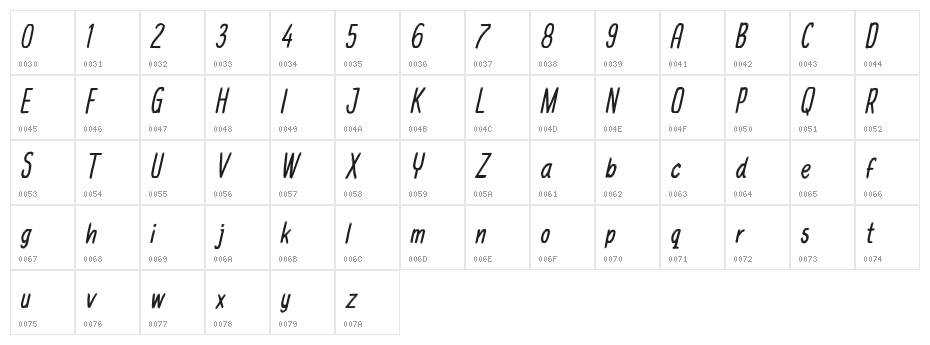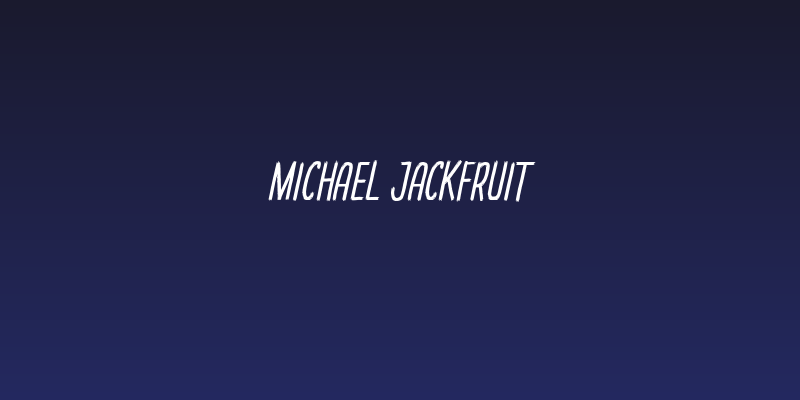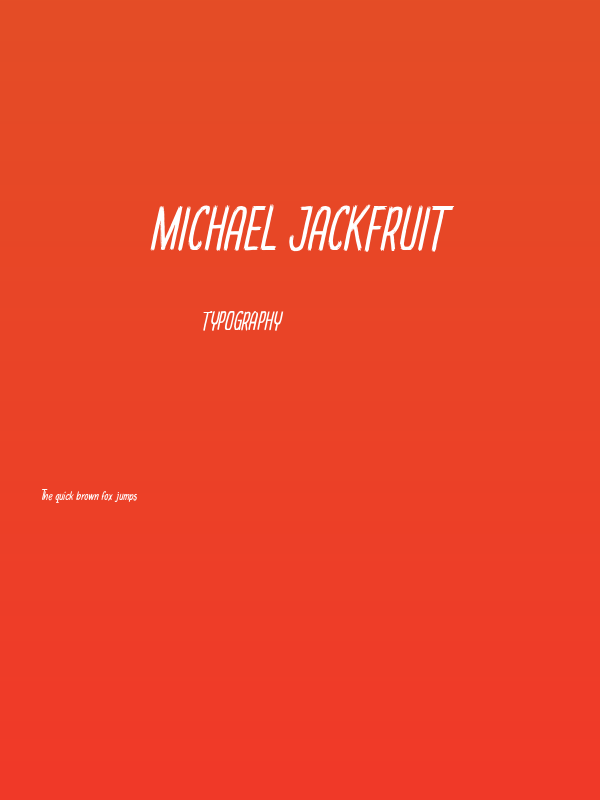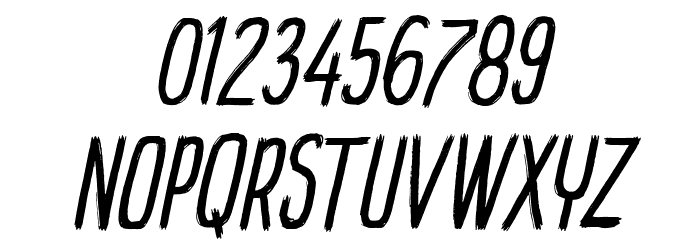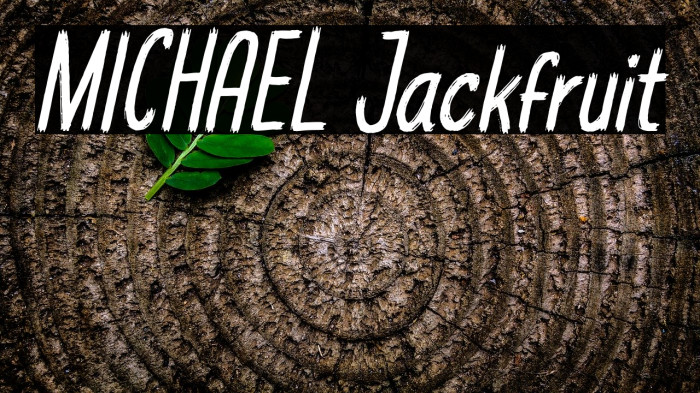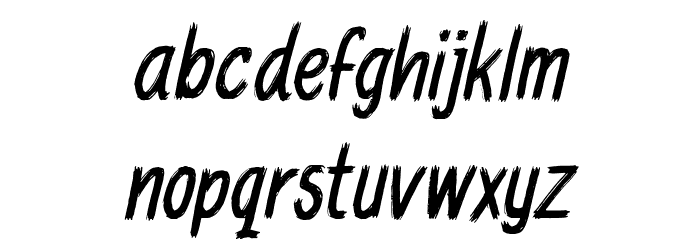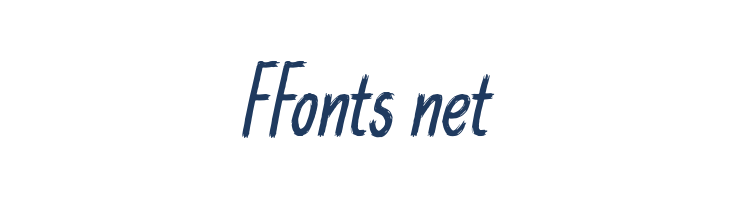
MICHAEL Jackfruit Font
MICHAEL Jackfruit Description
This font features a dynamic and energetic style with a brush-like texture, giving it a hand-painted appearance. The characters are slightly slanted, adding a sense of motion and fluidity. The strokes are uneven, with varying thickness that enhances its artistic and informal look. The uppercase and lowercase letters maintain a consistent style, while the numerals and special characters complement the overall design. This font is ideal for projects that require a bold and expressive touch, making it suitable for creative and artistic applications.
| Proposed Projects | Ideal for posters, album covers, branding, and artistic projects requiring a bold, expressive touch. |